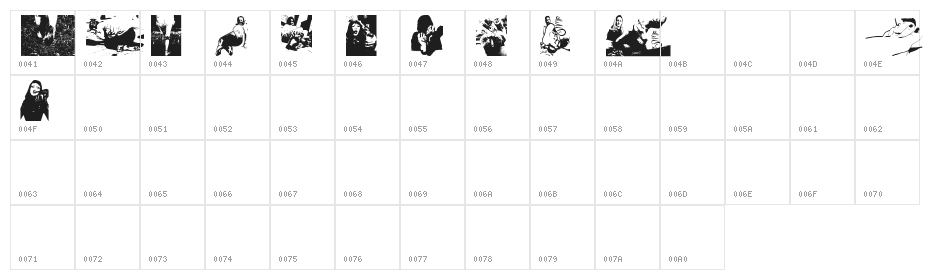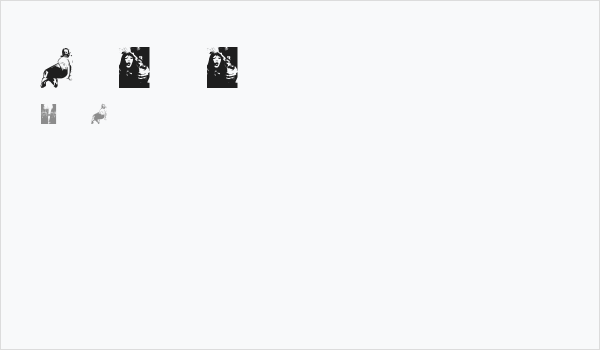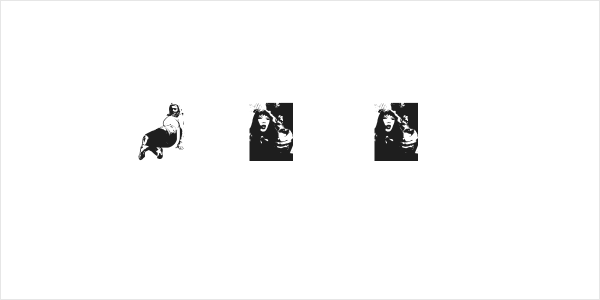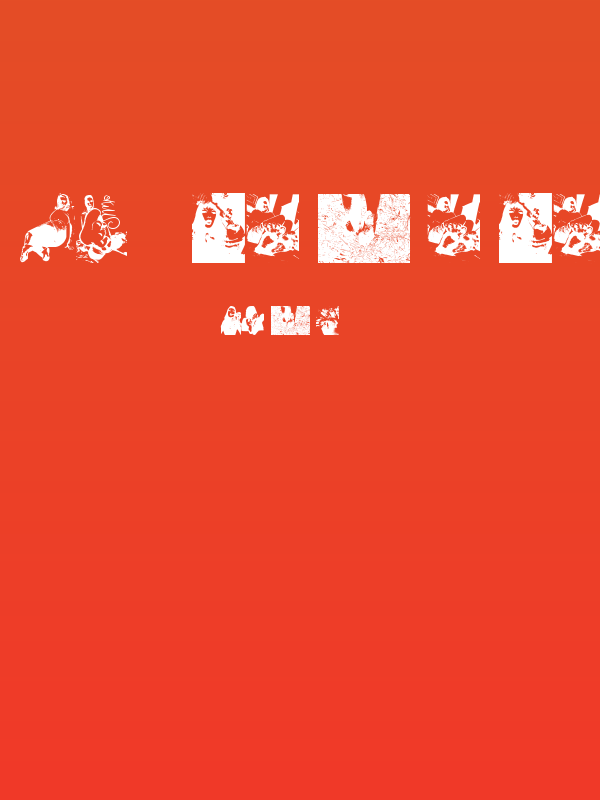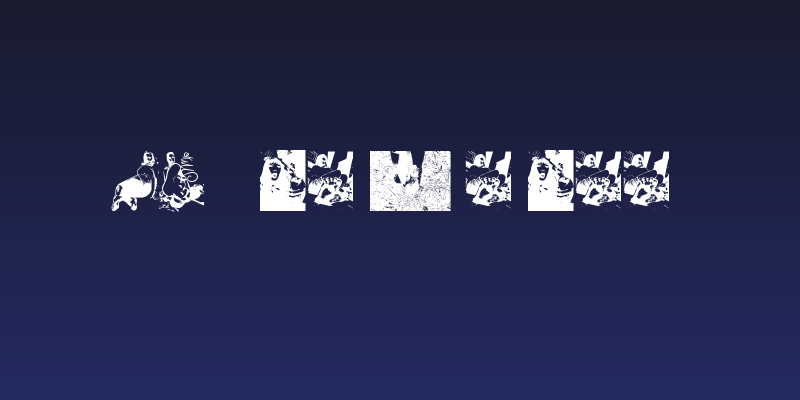
Dirty Female Feet Font
Dirty Female Feet Description
This set features highly stylized, black-and-white, photo-based letterforms and symbols, each constructed from cutout images of people and objects, resulting in a collage-like, illustrative appearance.
| Overall Style | Decorative, Experimental, Collage |
| Use Case | Headlines, Posters, Artistic projects |
| Proposed Projects | Posters, album covers, editorial headlines, experimental branding, zines. |